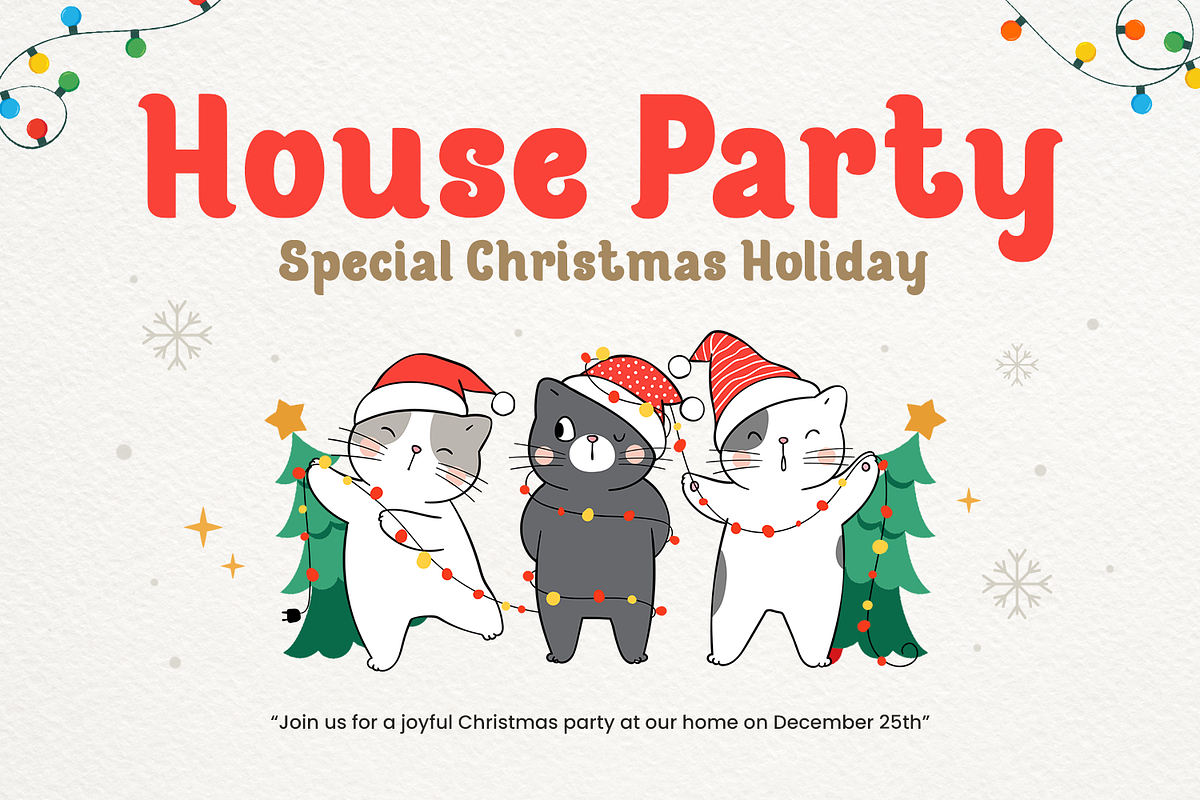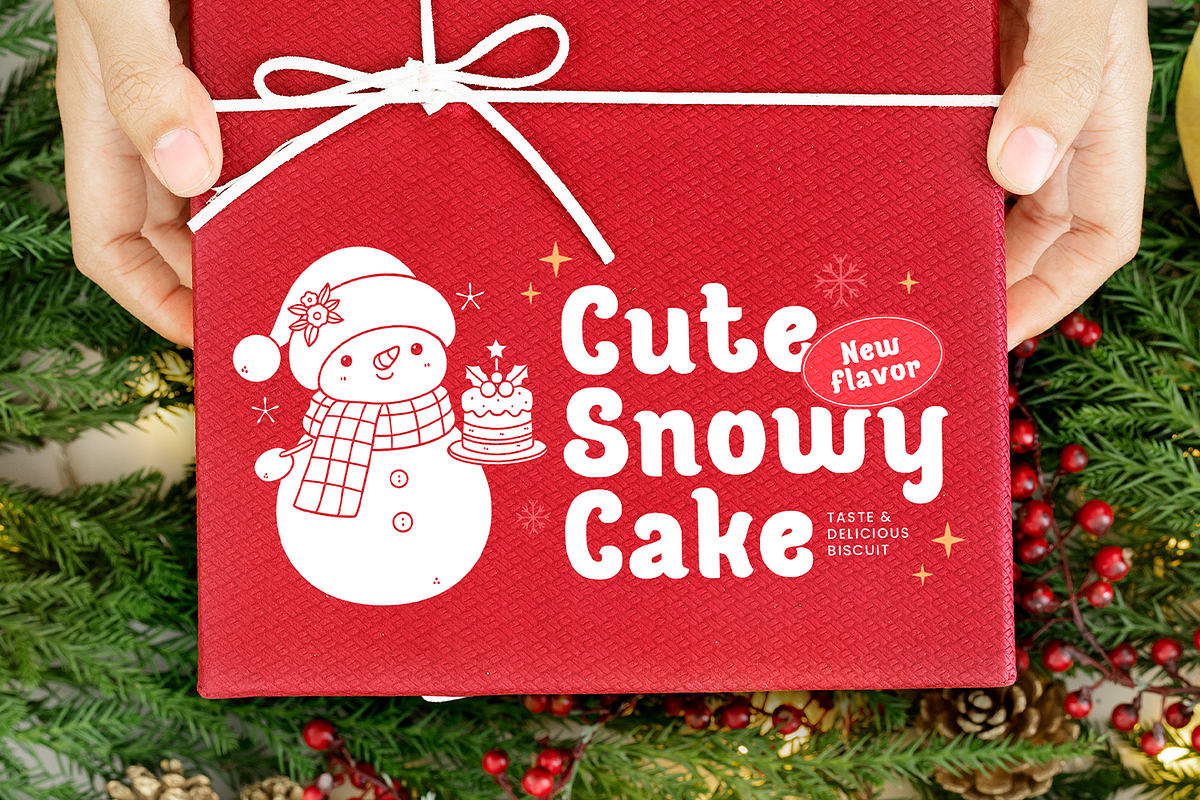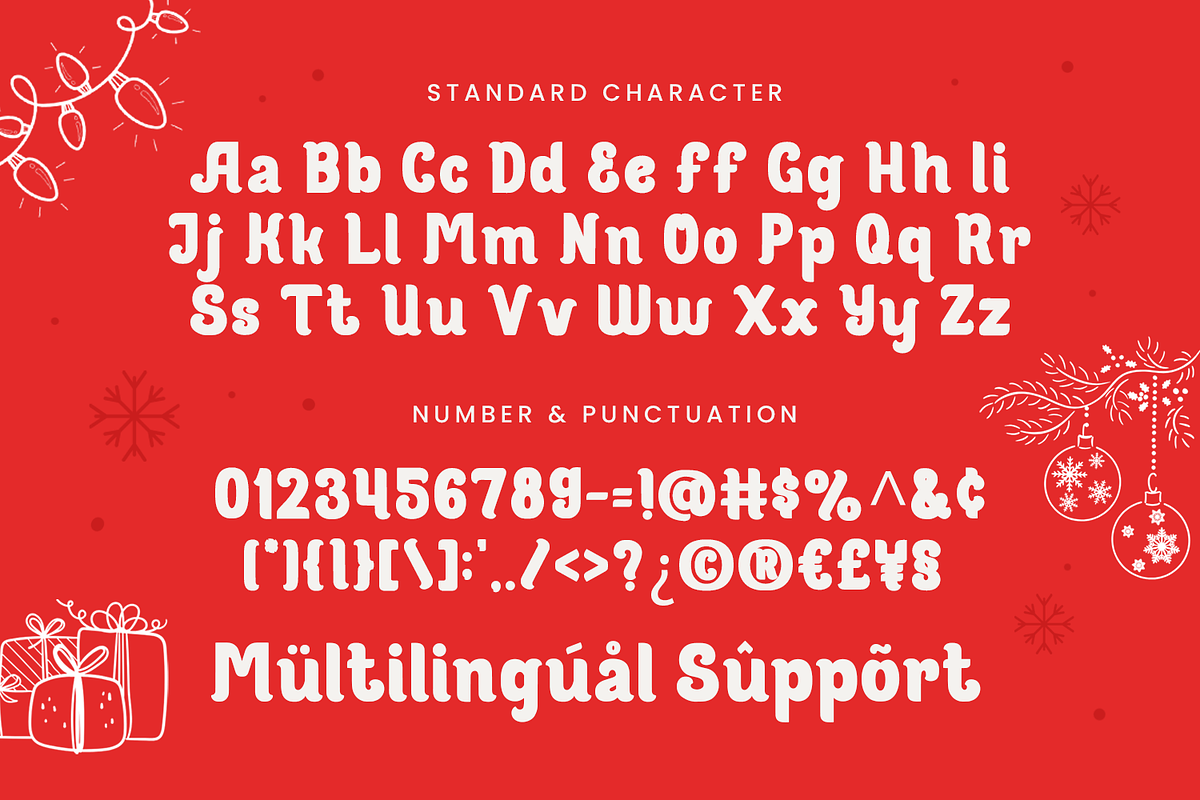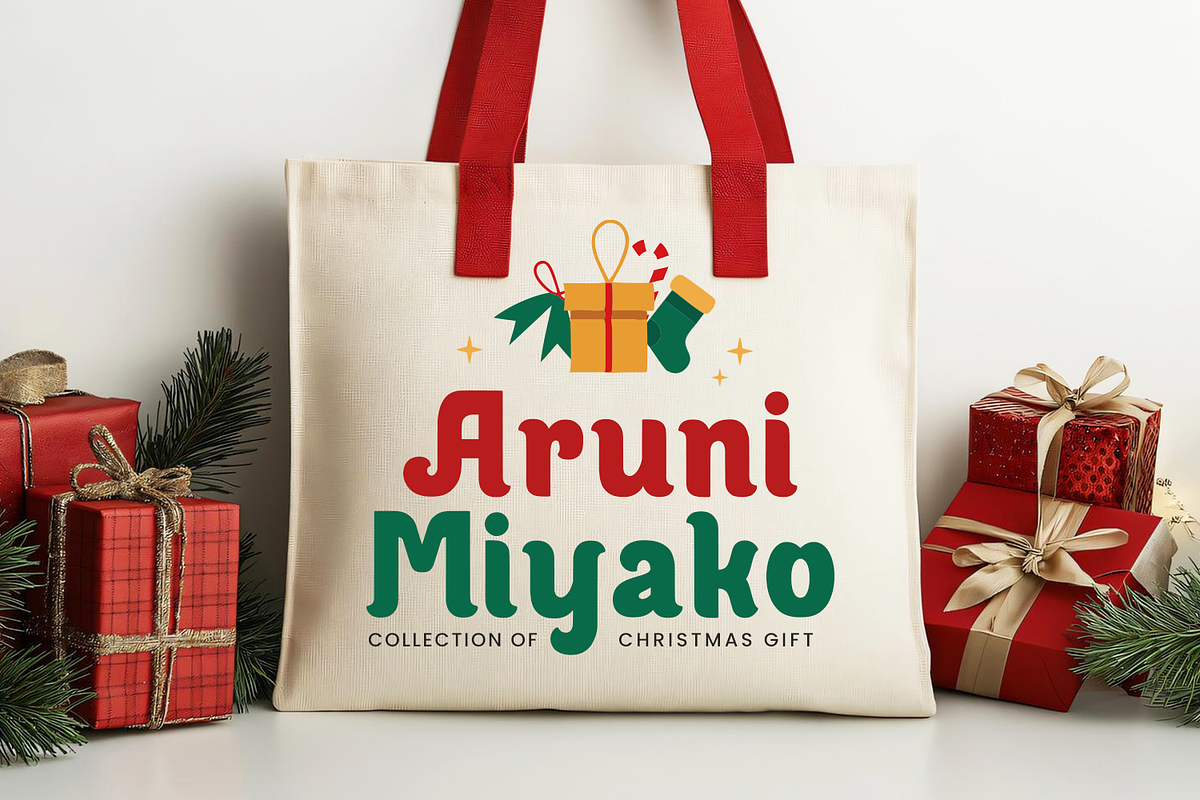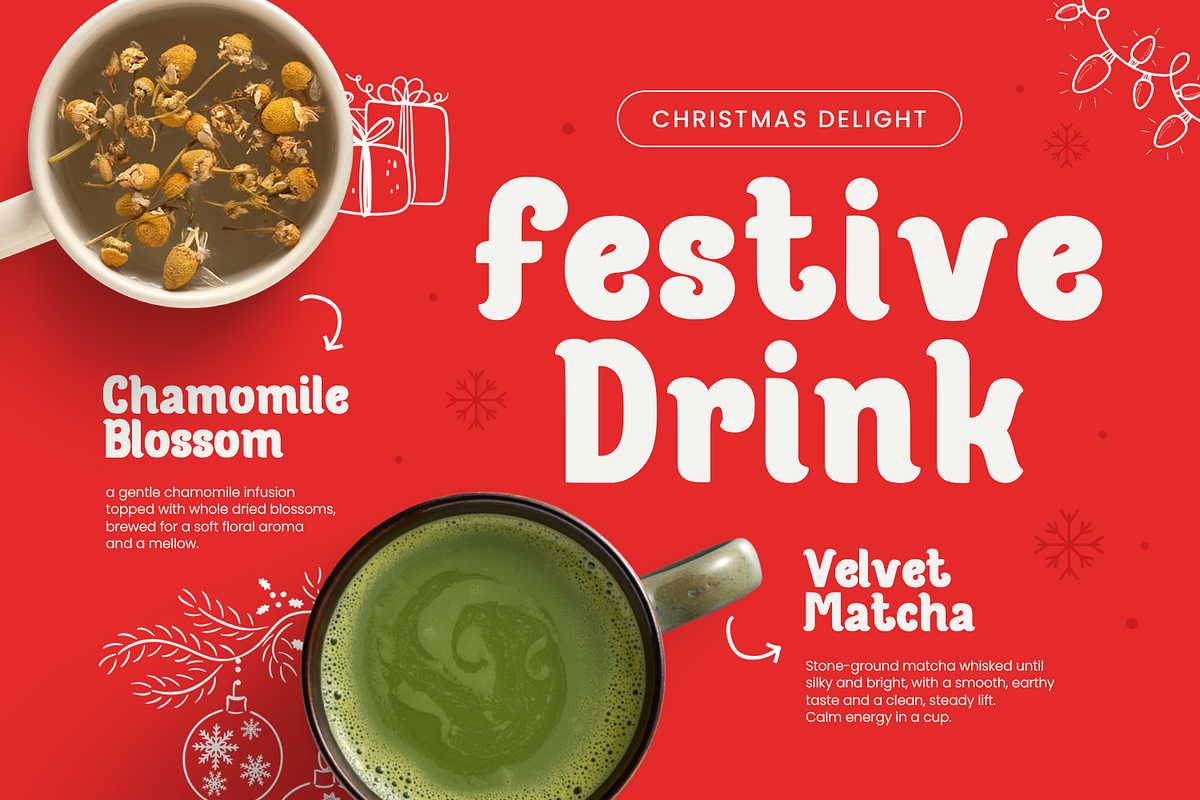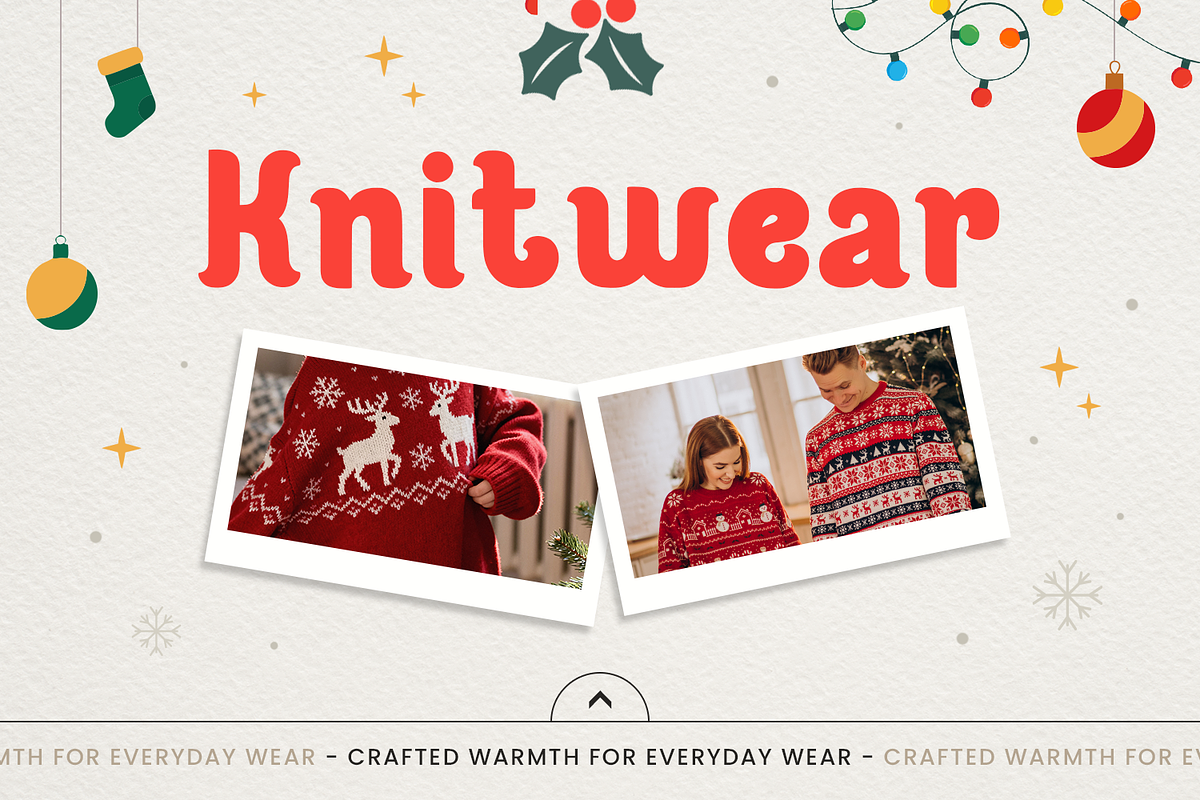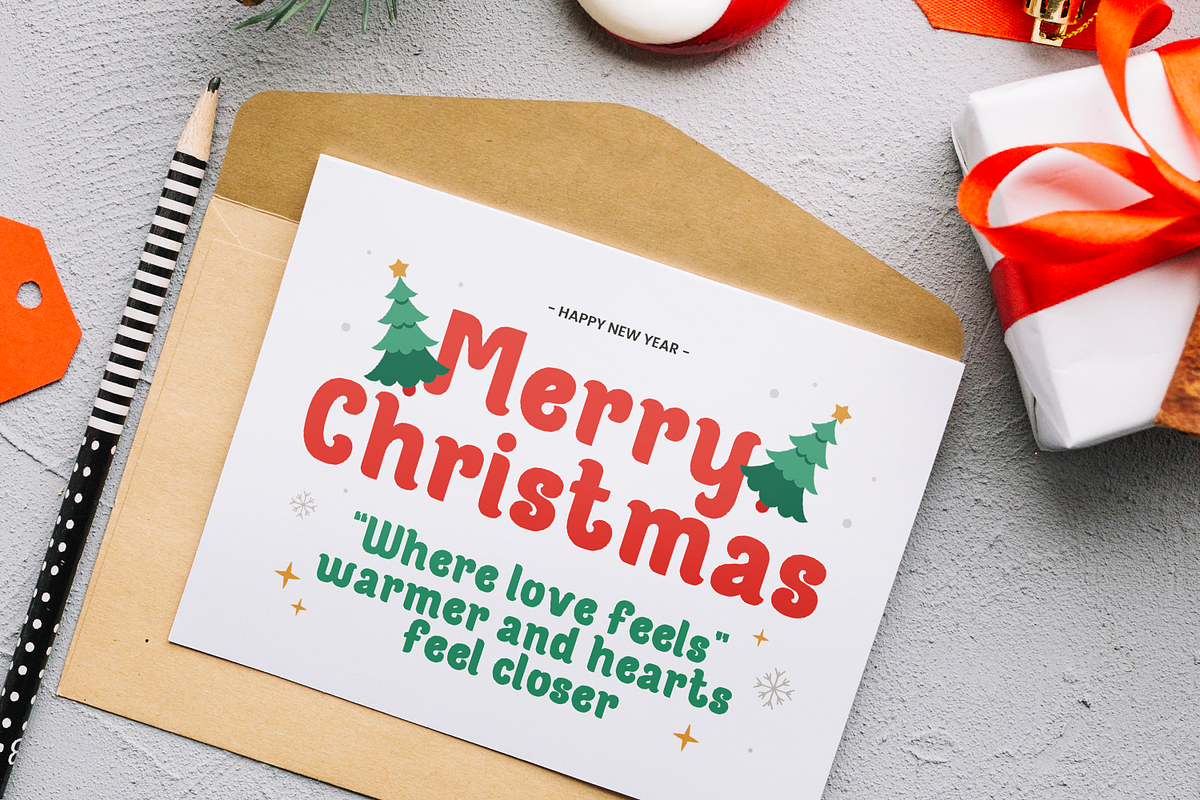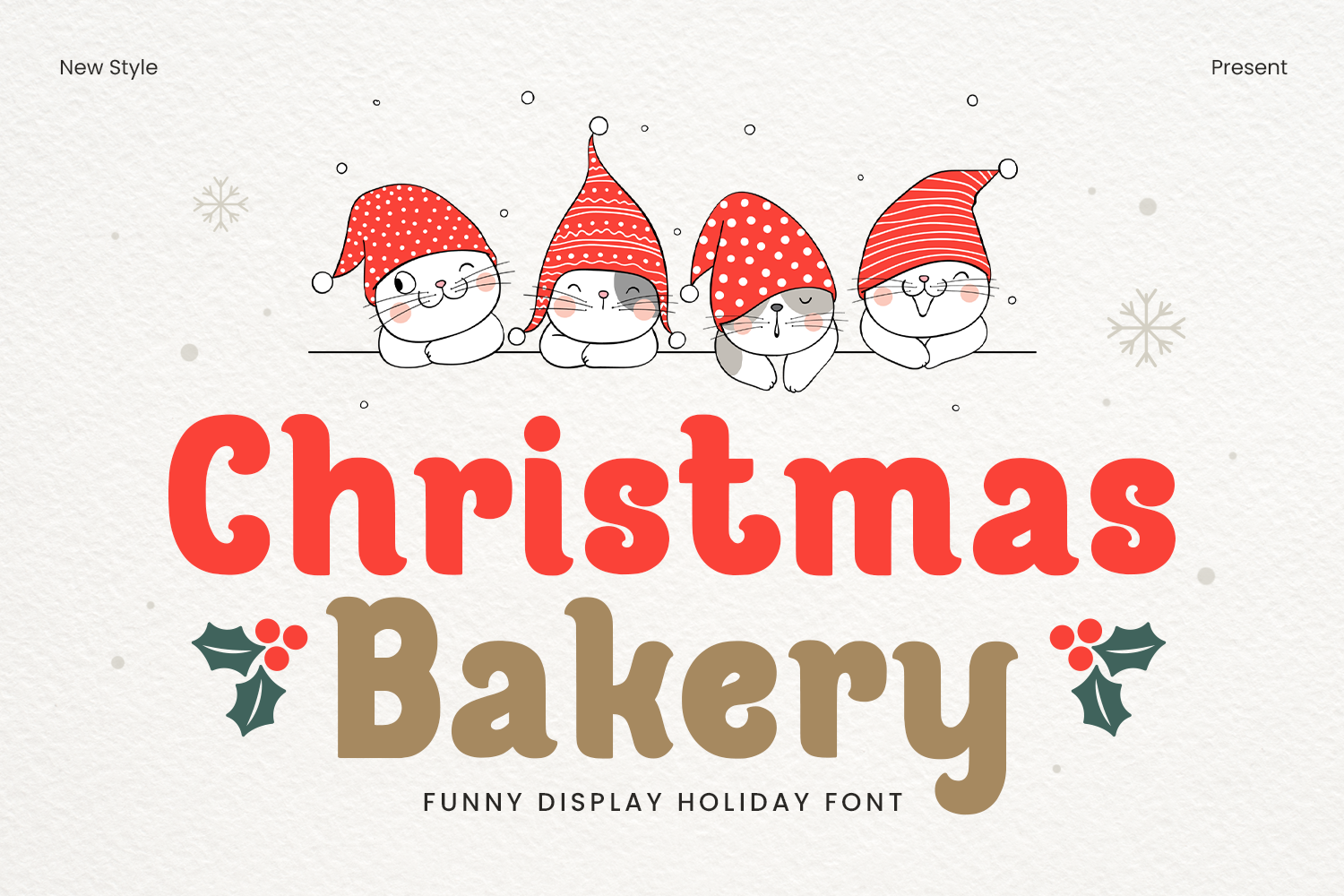
Christmas Font - Christmas Bakery
Christmas Bakery is a warm and delightful display font inspired by the cozy atmosphere of holiday kitchens and sweet seasonal treats. With its charming letterforms and friendly personality, this font brings a homemade, joyful feeling that perfectly suits festive and heartwarming designs.
Ideal for Christmas and winter-themed projects, Christmas Bakery also works beautifully for Thanksgiving, birthdays, baking labels, party invitations, and family-friendly celebrations. Its playful yet clear style makes it easy to read while adding a fun decorative touch to any design.
Christmas Bakery is perfect for creative applications such as greeting cards, menu designs, packaging, stickers, posters, and social media content. The cheerful character of the font enhances food-related themes, crafts, and holiday promotions with a cozy and inviting look.
Well-suited for Cricut projects, crafts, DIY decorations, lettering, embroidery, and SVG designs, this font offers great versatility for both digital and handmade creations. It adds a sweet and festive accent that feels personal and memorable.